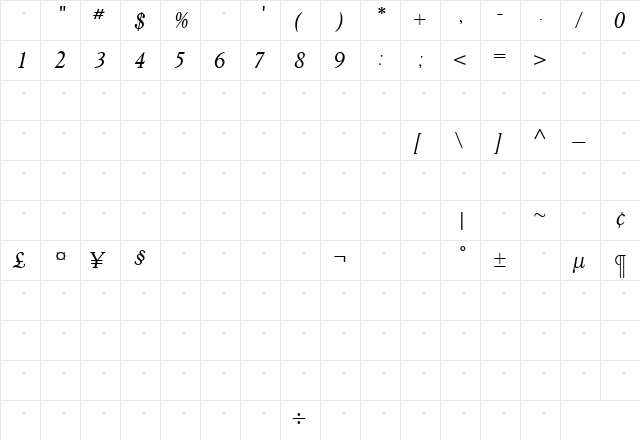
GoudY38BookItalicTab Medium
Design Context for GoudY38BookItalicTab Typeface
GoudY38BookItalicTab is a composed and adaptable typeface that performs quietly and consistently across a wide range of design contexts. Its italic angle brings a sense of urgency and motion to the letterforms.
Pro Tip: Use GoudY38BookItalicTab for emphasis, pull quotes, and subheadings where its slanted energy can add rhythm to the layout.